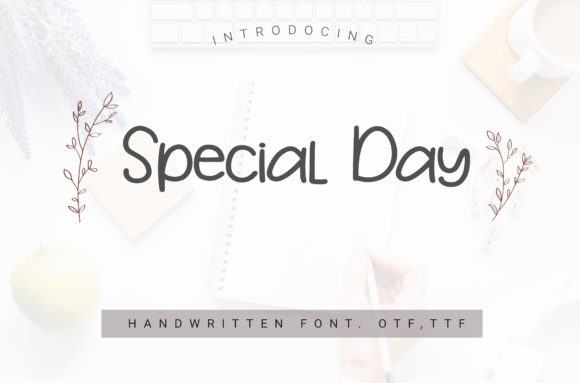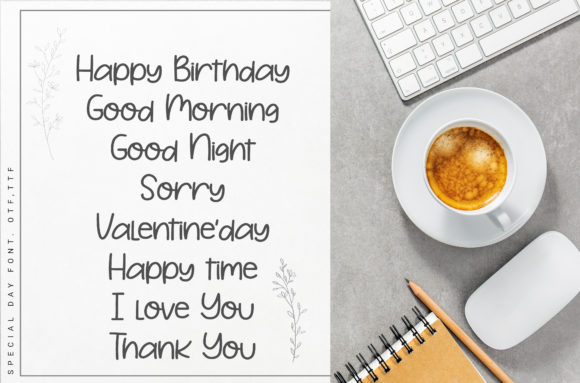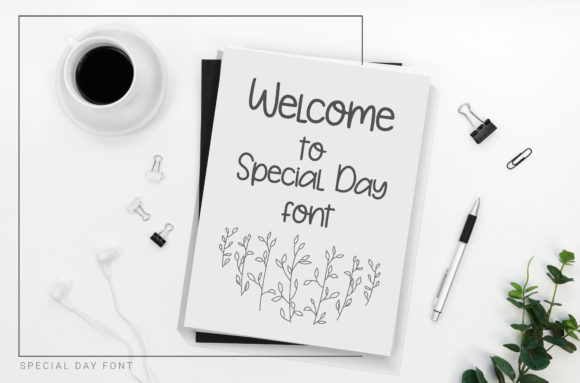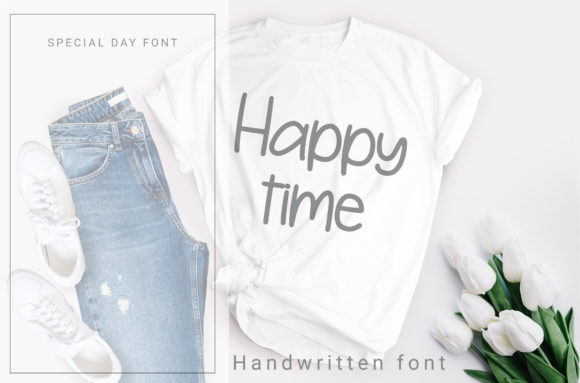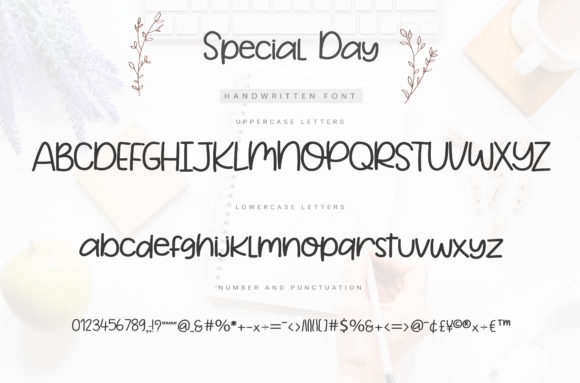
Special Day Font
About Special Day Font
Special Day is a simple and cute handwritten typeface. Use this gorgeous and unique font to bring any DIY project to life!